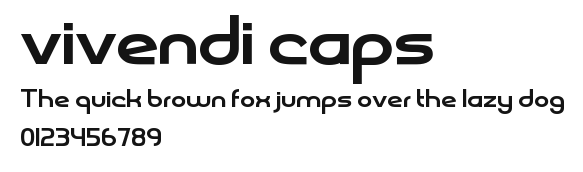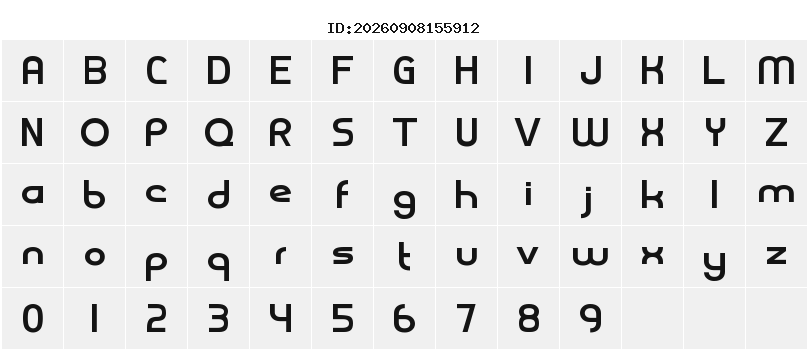
About vivendi caps.ttf
vivendi caps.ttf is a modern, elegant sans-serif font designed for ultimate readability and visual harmony. Perfect for branding, headlines, web design, and print materials.